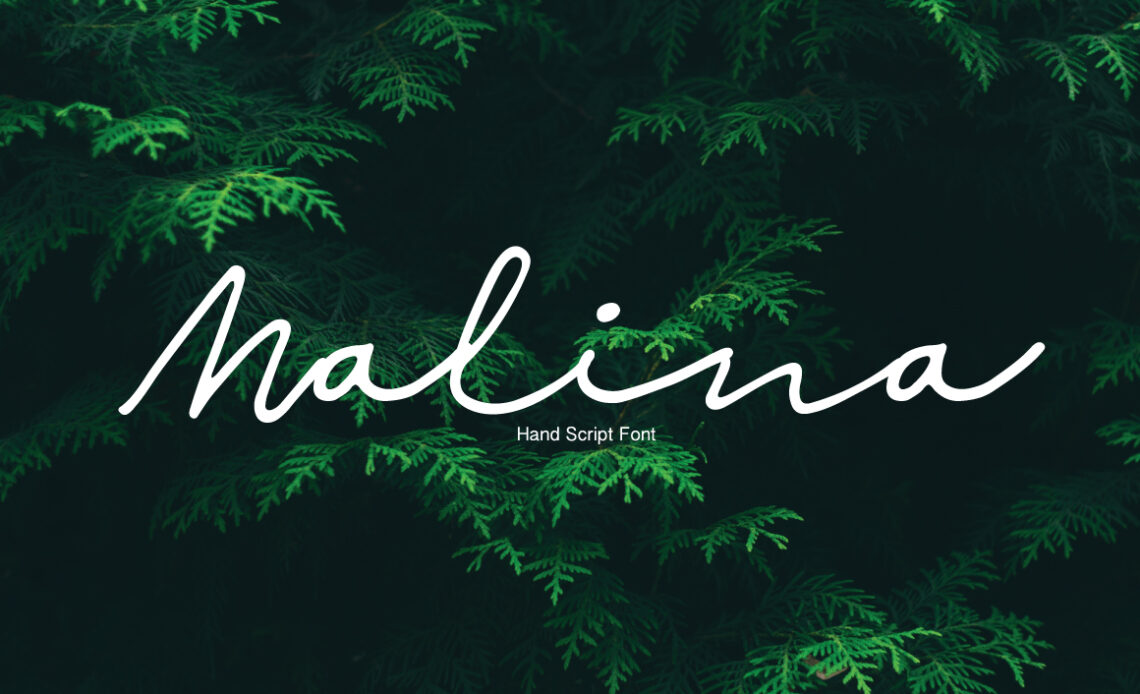
Malina Font
Introducing Malina Font: A Harmonious Fusion of Elegance, Warmth, and Authenticity
In a world saturated with digital communication, the essence of genuine connection often gets lost. Malina Font is not just a font; it's a gateway to a world of heartfelt expression, crafted with the intention of transforming your digital creations into tangible masterpieces.
Experience the Delicate Grace of Malina
Malina is a beautiful, flowing script font that dances across the screen with an effortless grace that is both captivating and approachable. Its meticulously crafted curves and flourishes evoke a sense of artistry and authenticity, making it the perfect choice for creating stunning logos, eye-catching social media posts, heartfelt invitations, elegant product packaging, and everything in between.
Embrace the Power of Versatility
With Malina, versatility is not just a feature; it's a defining characteristic. This remarkable font family seamlessly adapts to a wide range of projects, effortlessly elevating them with its timeless elegance. Whether you're designing for a modern fashion brand, a rustic wedding invitation, or a whimsical children's book, Malina has the unique ability to enhance your vision and make your creations shine.
Feel the Emotional Resonance
Malina is more than just a collection of letters; it's a conduit for emotions. Every stroke and swirl is infused with warmth and personality, creating a genuine connection between the written word and the reader's heart. Unleash your creativity and let Malina's enchanting charm breathe life into your designs, captivating your audience and leaving a lasting impression.
Discover the Studio_Art Advantage
Behind Malina's exquisite beauty lies the expertise of Studio_Art, a renowned font foundry dedicated to pushing the boundaries of creativity. With a deep understanding of typography and a keen eye for detail, Studio_Art has poured their passion into every curve and flourish of Malina, ensuring that it not only meets but exceeds the expectations of even the most discerning designers.
Take Your Designs to New Heights with Malina
Malina is more than just a font; it's an invitation to embark on a journey of creative exploration and emotional expression. Discover the limitless possibilities that await you when you embrace Malina's timeless elegance and versatility. Transform your digital creations into heartfelt masterpieces and connect with your audience on a deeper level.
Let Malina be your muse and experience the transformative power of handwritten beauty. Unleash your creativity and make a lasting impact with every word you write.